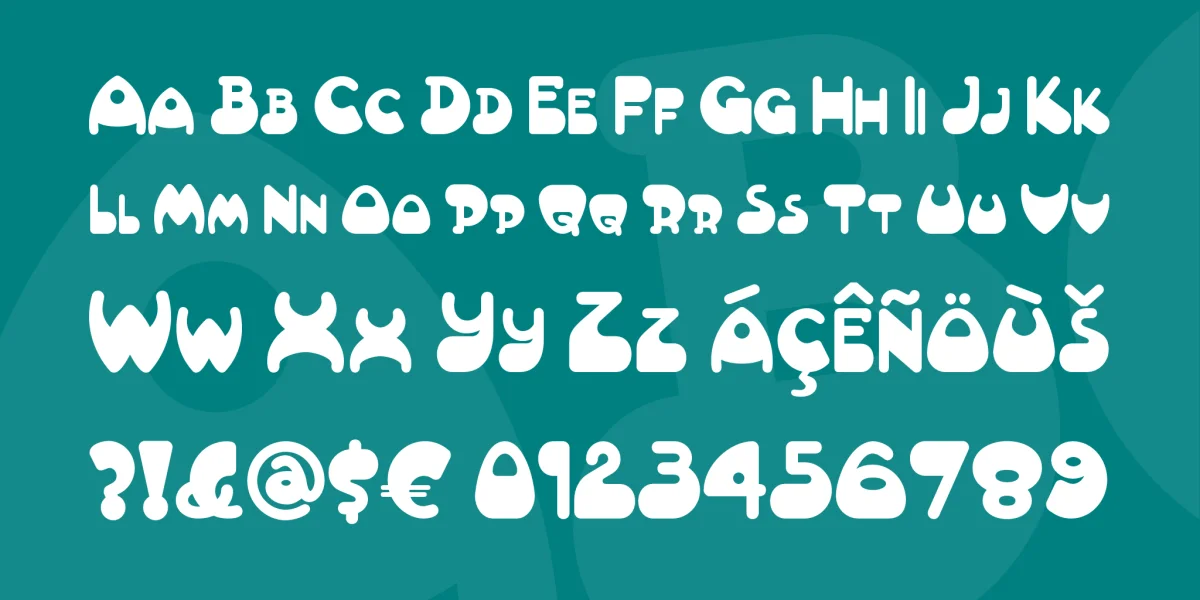
Here’s a fun little font based on circa 1896 logotype lettering for the Italian confectioner Talmone. Rotund, jolly and endearing, begs to be picked up and taken home.